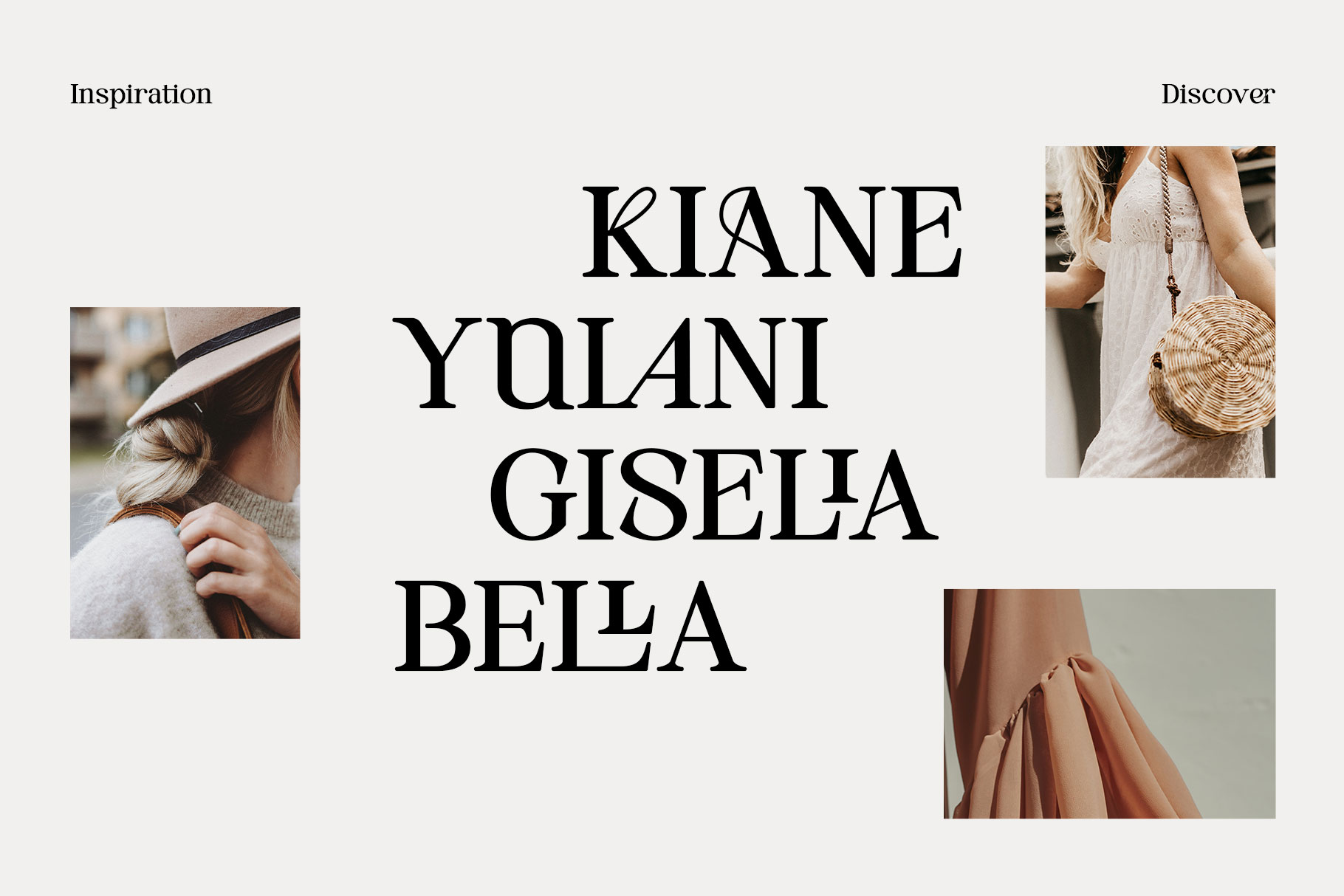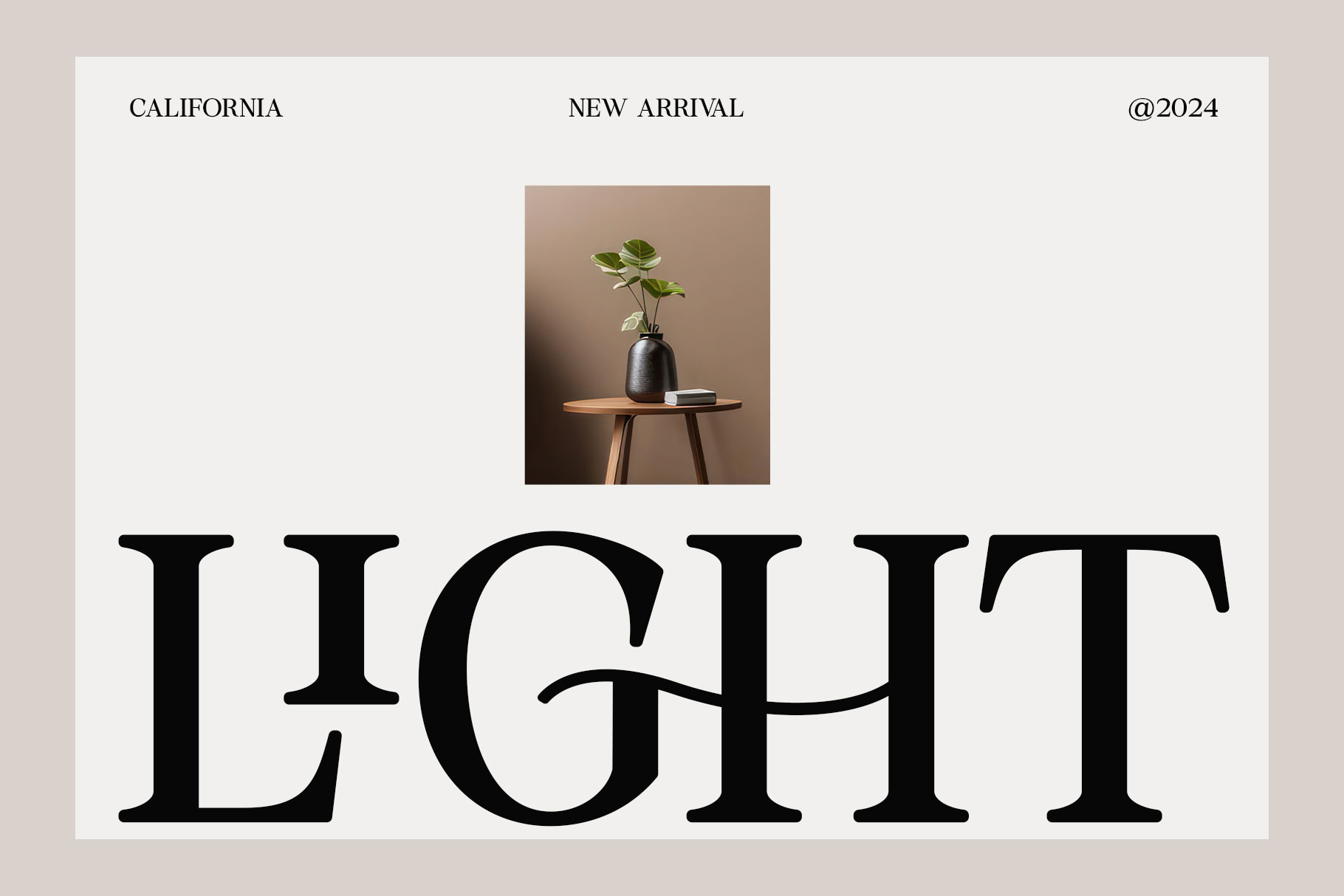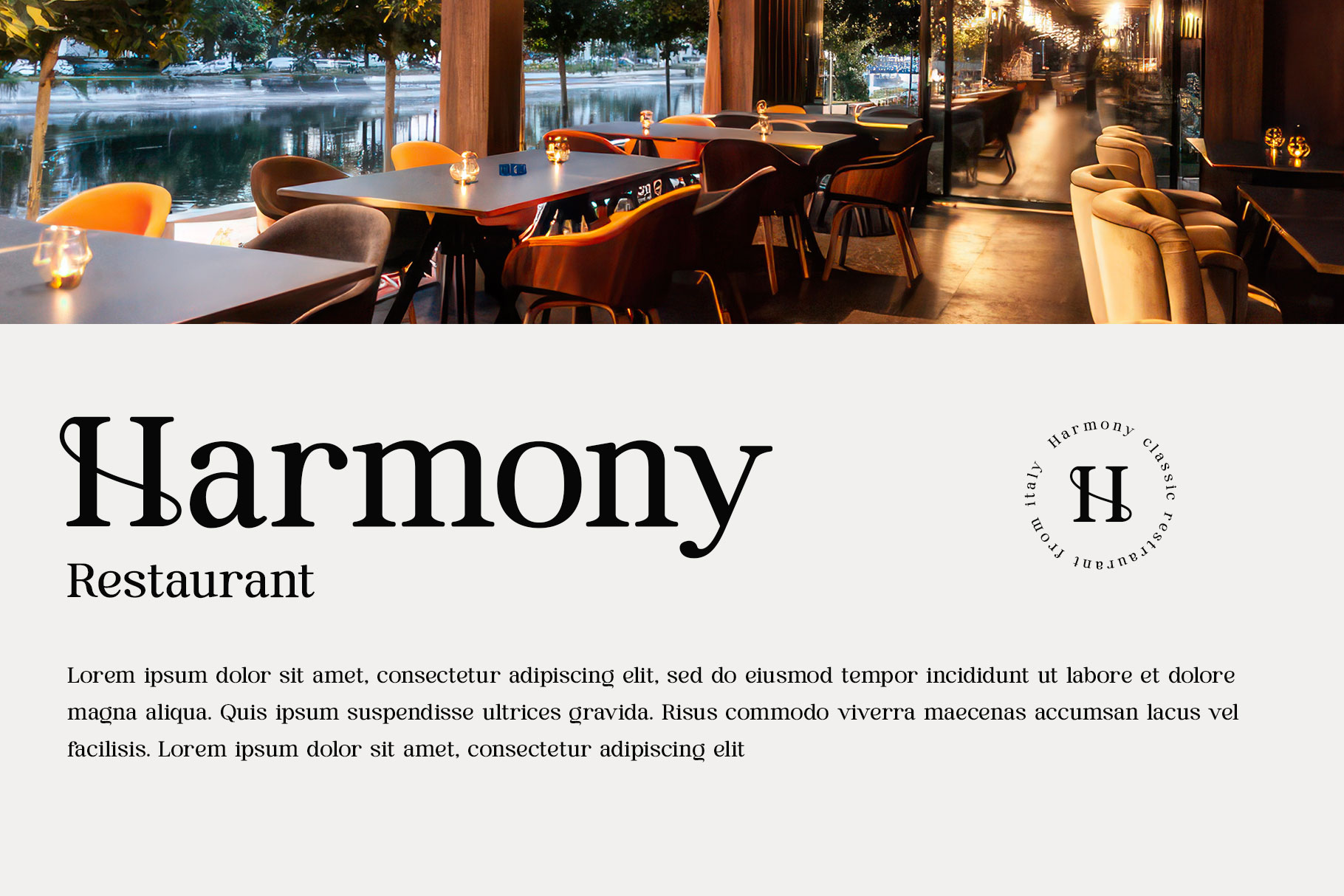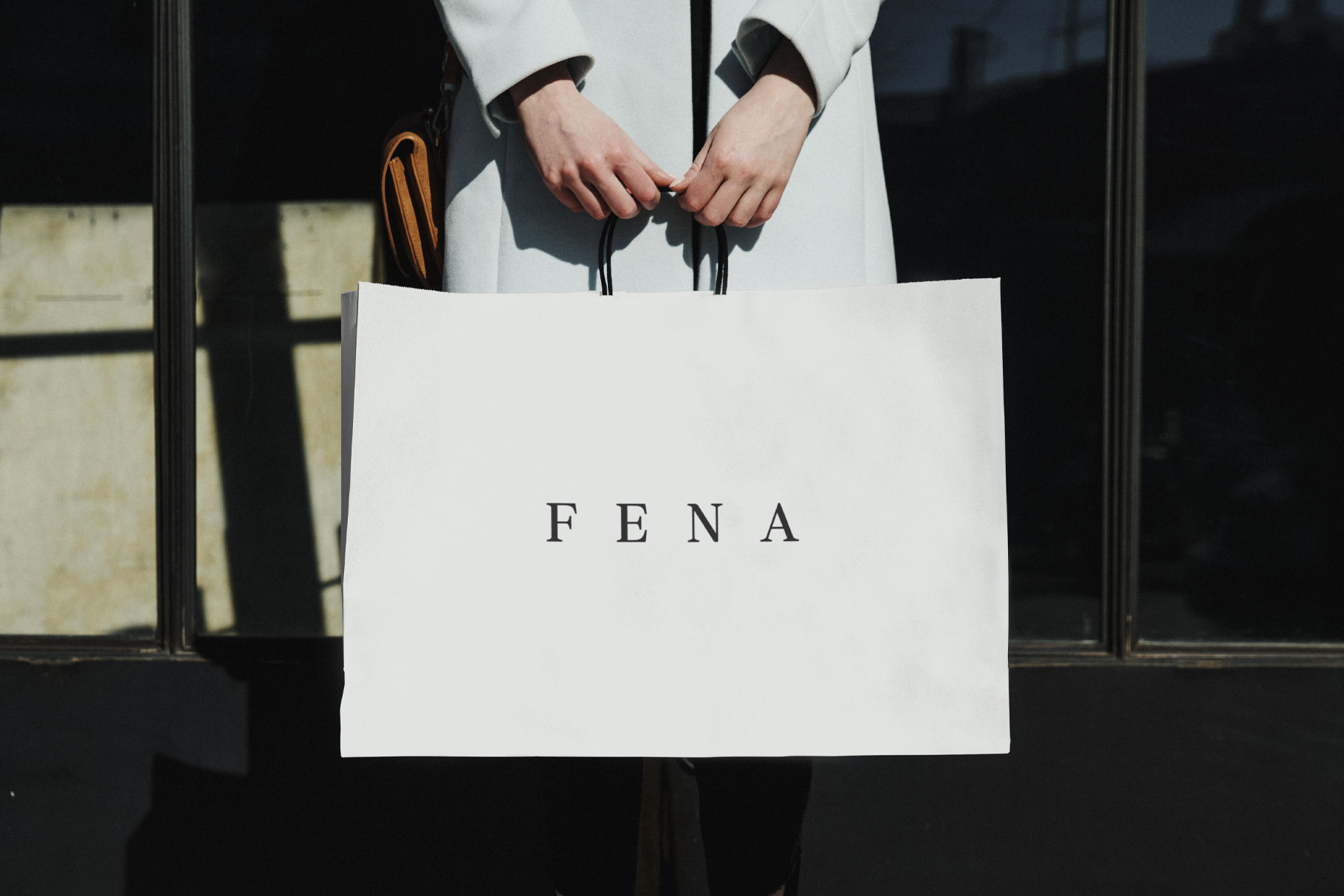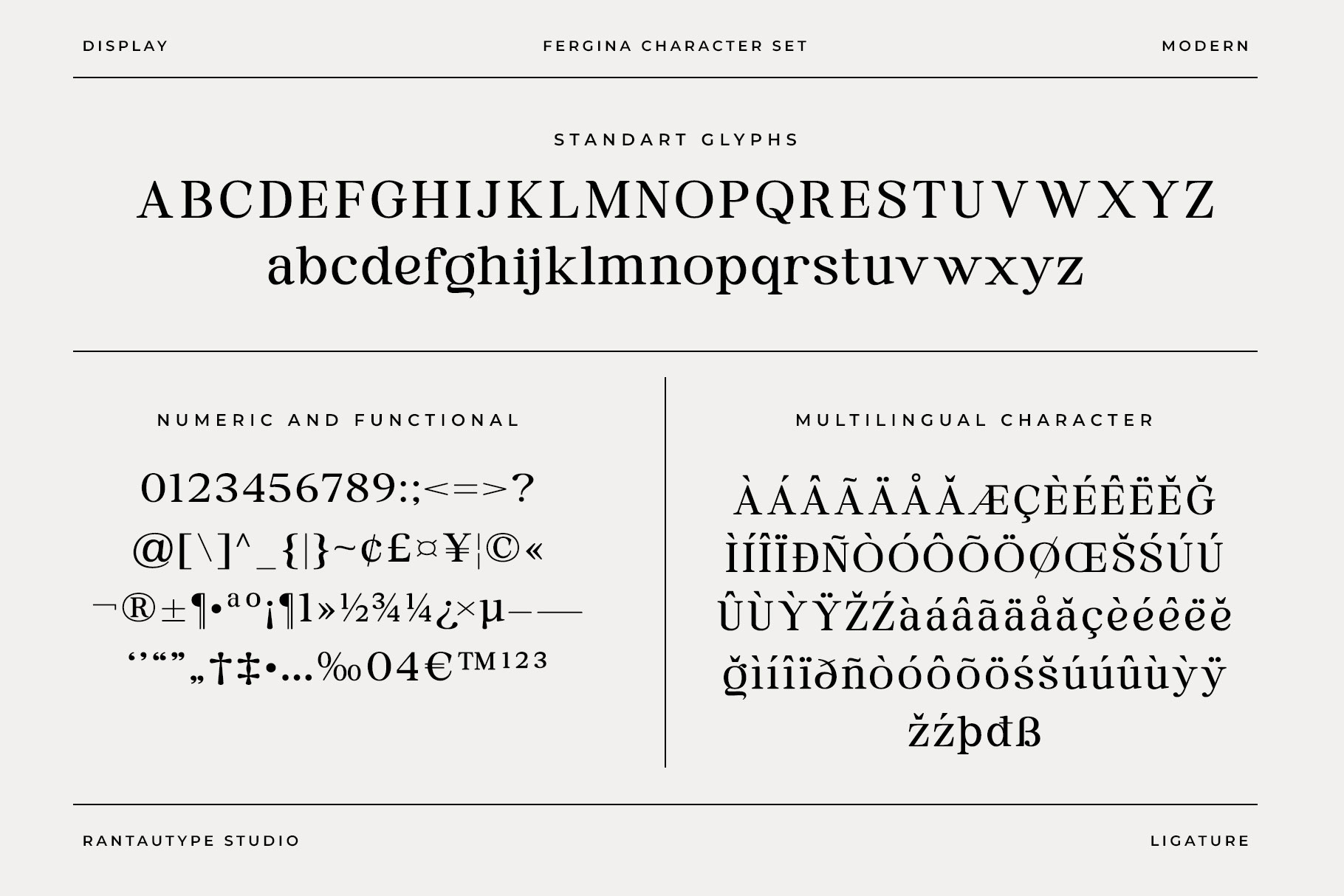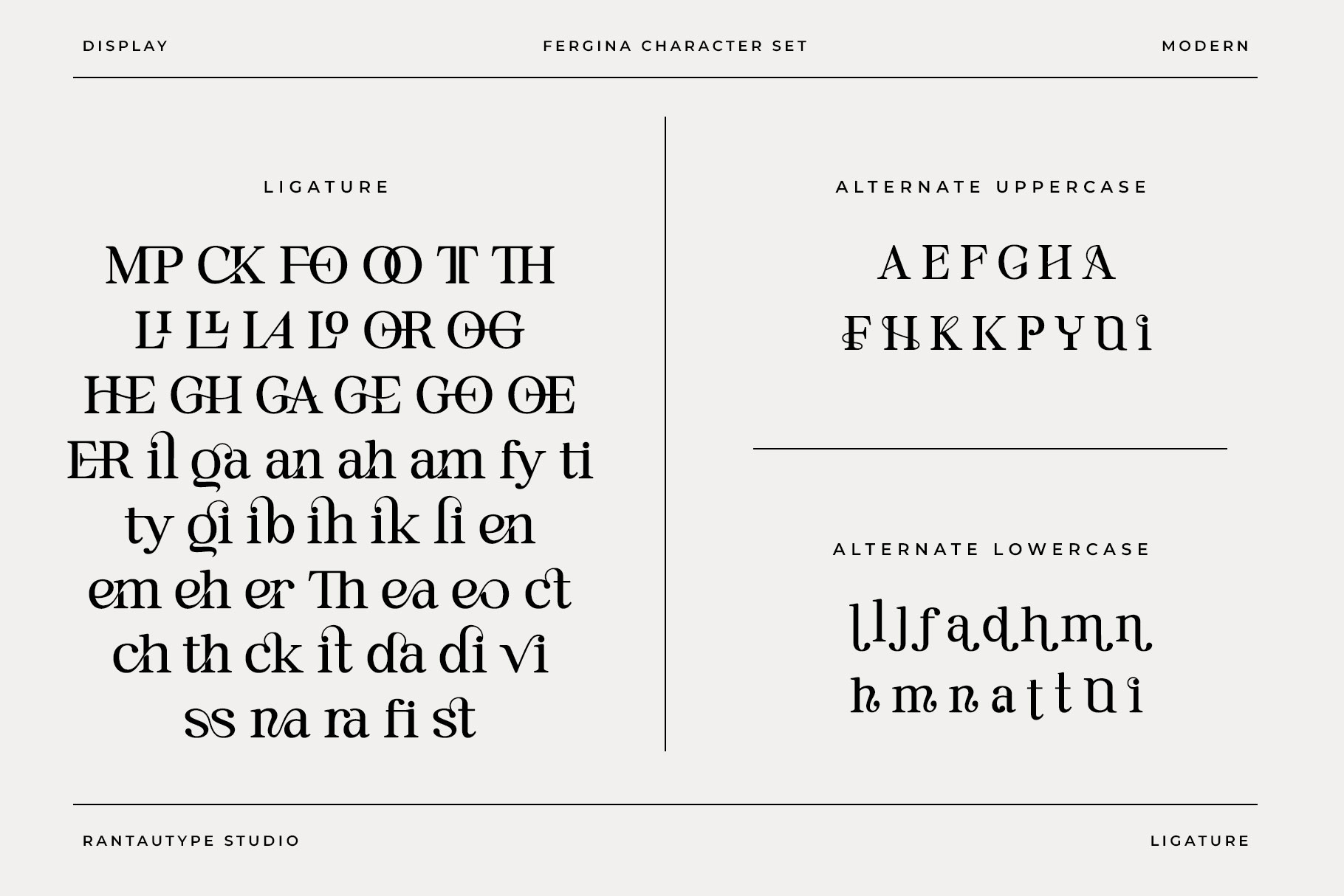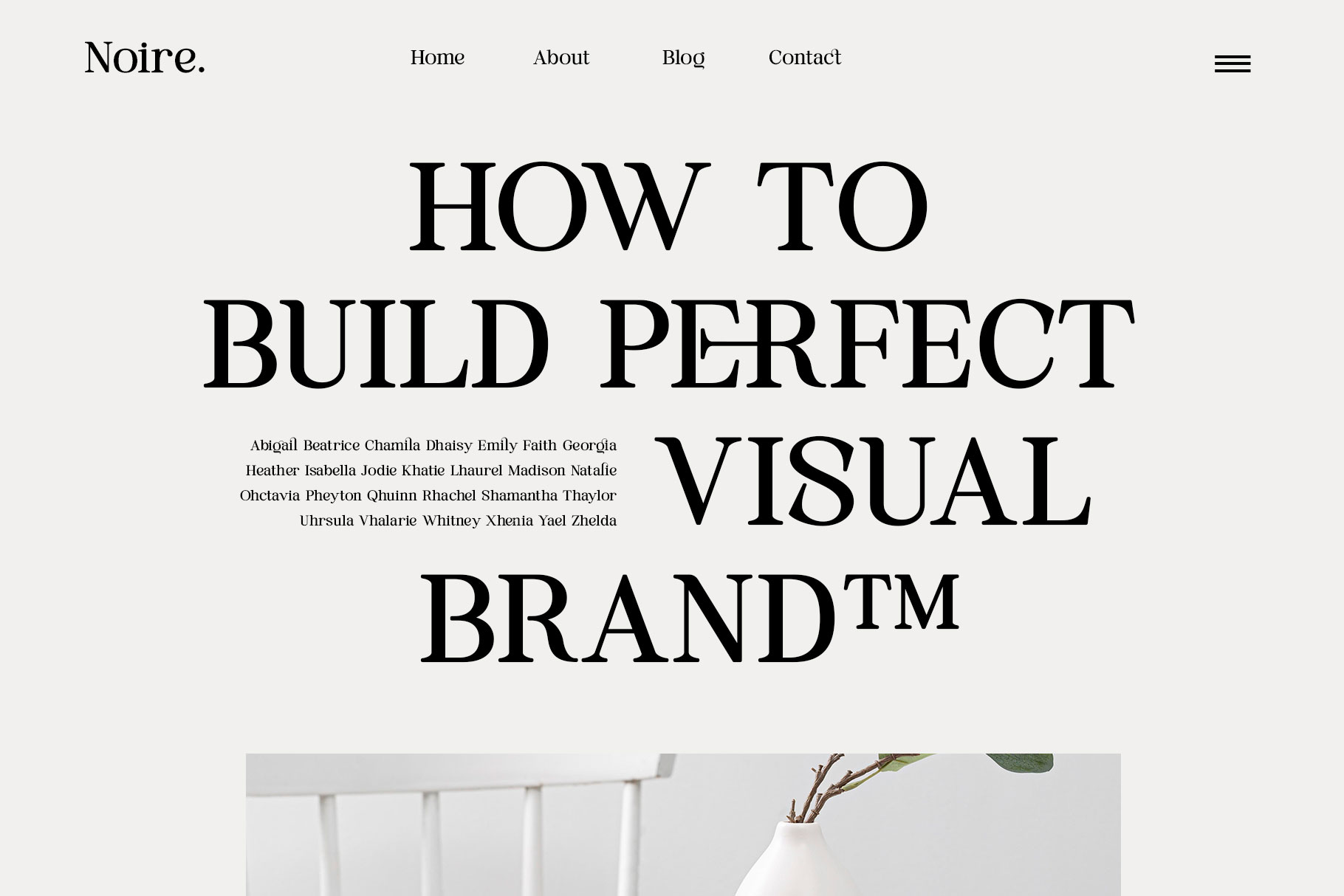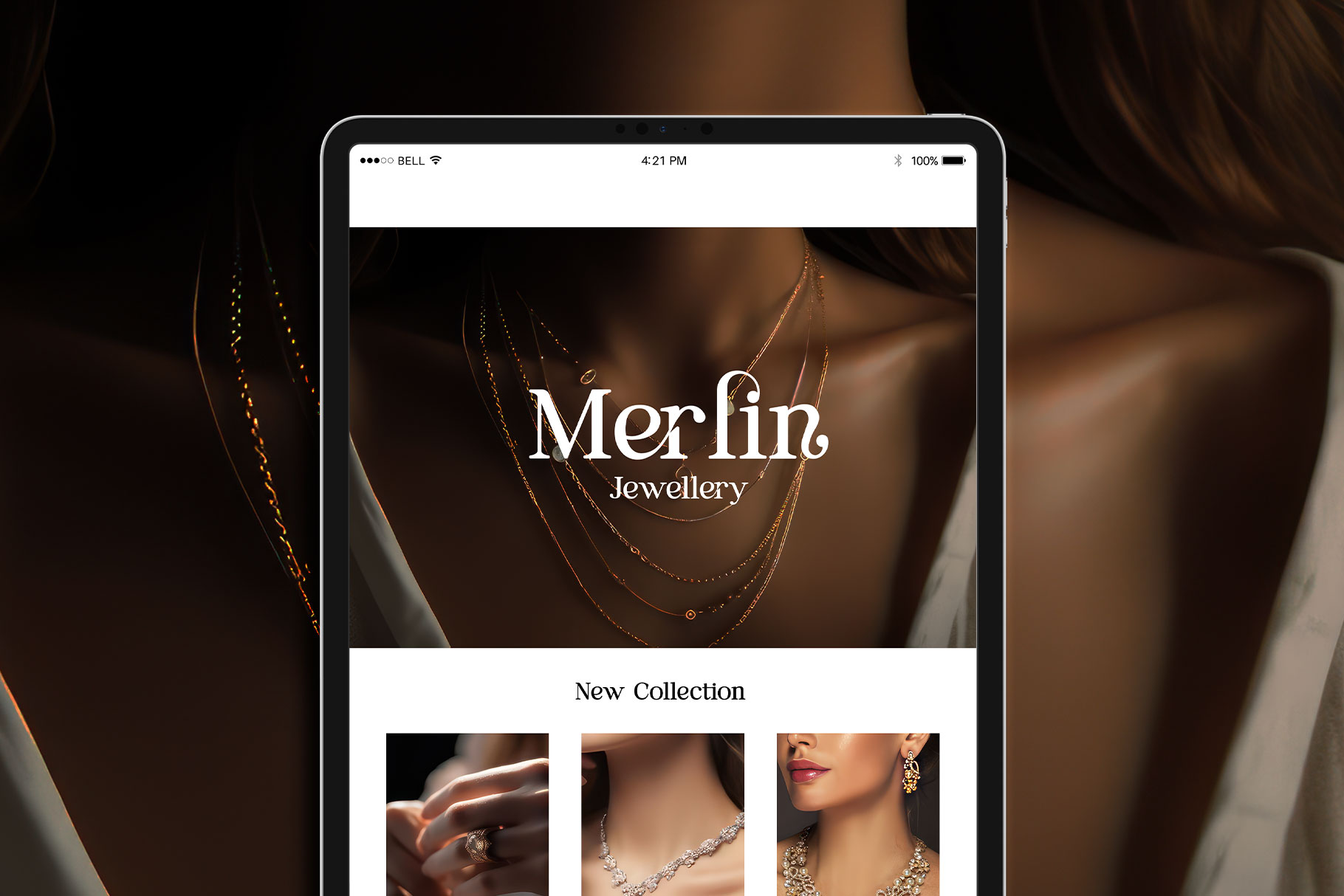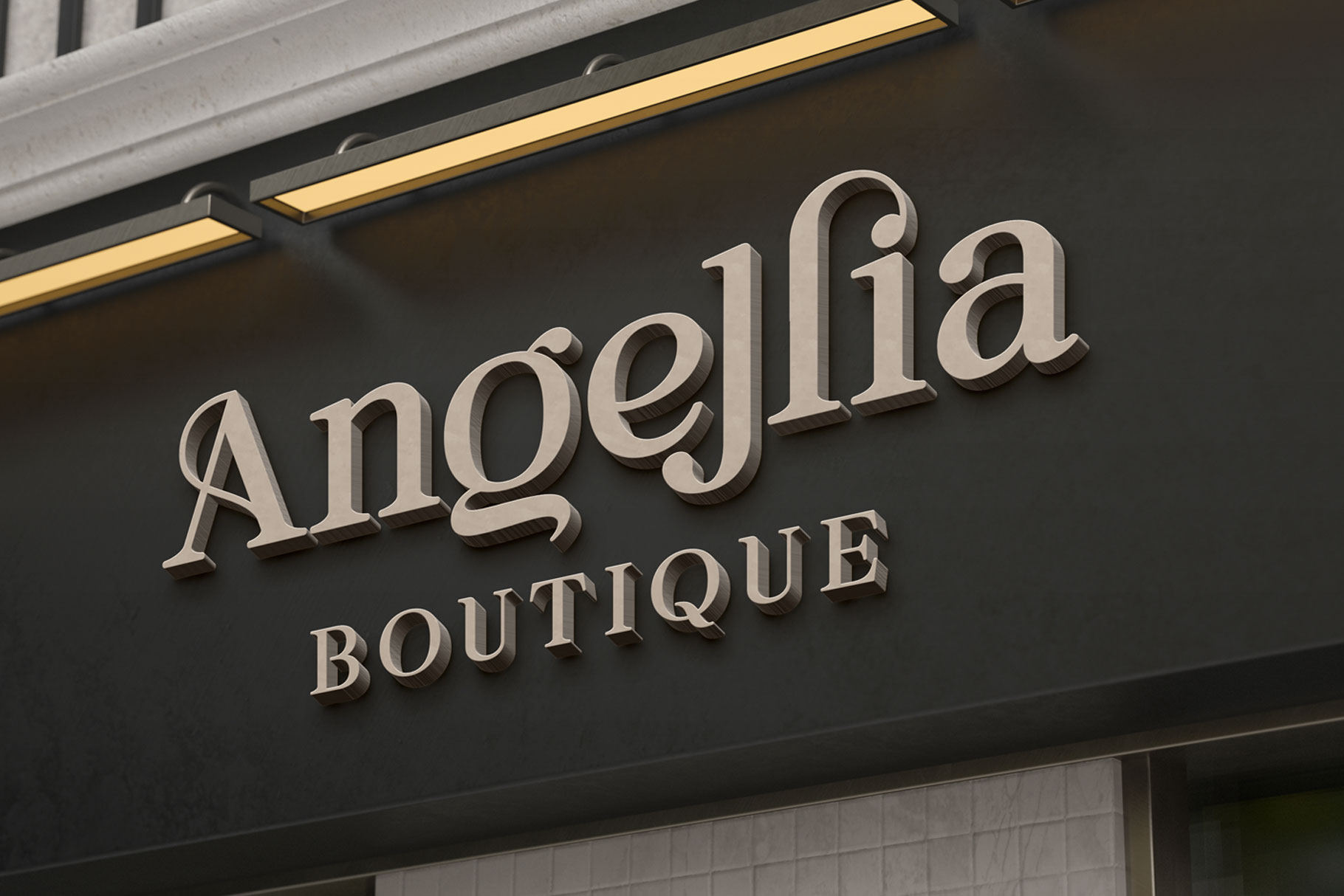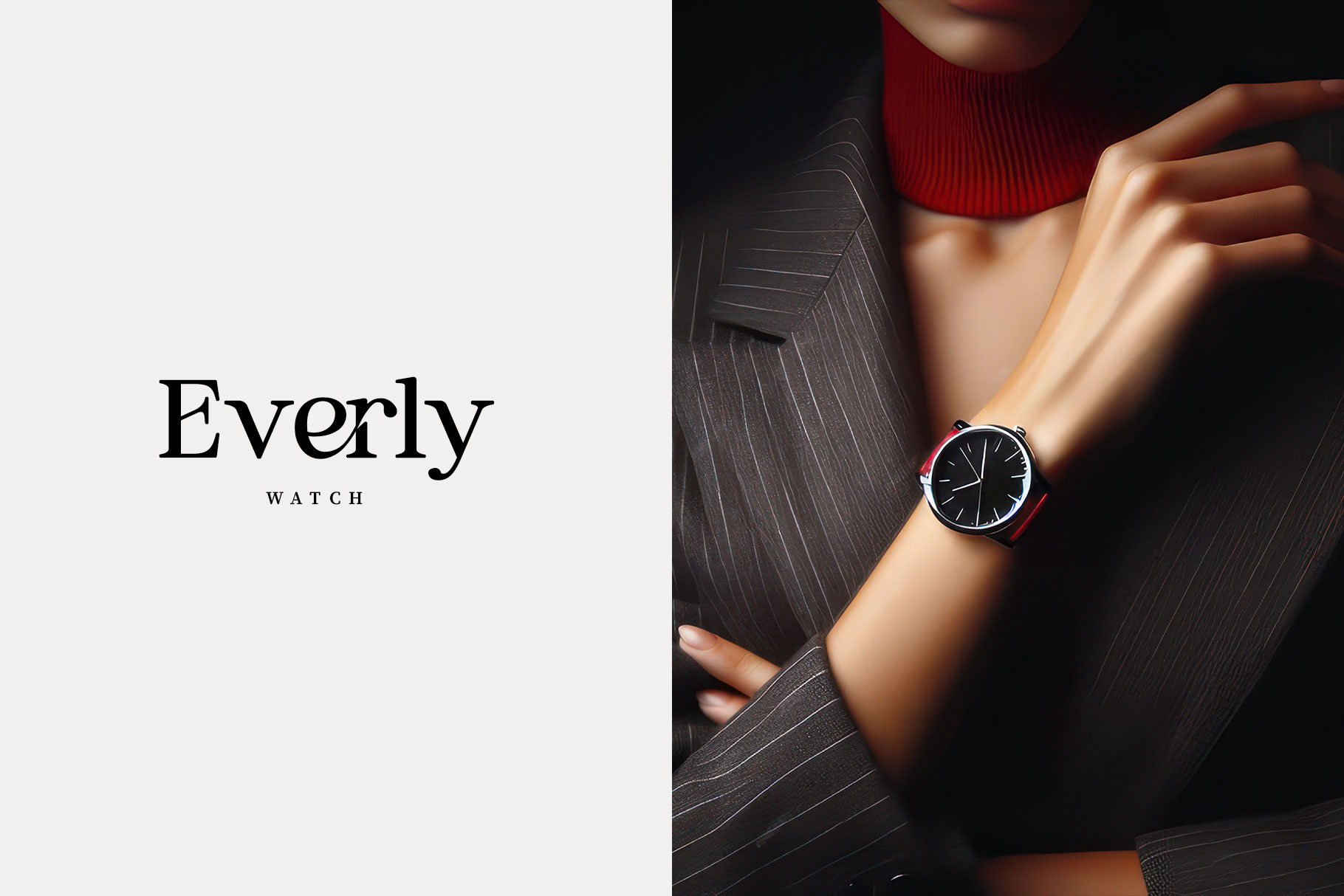
Fergina Modern Ligature Font
Fergina is modern serif font with 50+ ligature. Fergina give elegant and attractive visual design to create project design stand out.
Fergina is a perfectly choice for any creative endeavor, chic, lifestyle design such as logos, advertisements, watermark on photography, stationery, branding project, display and magazine, invitation, corporate brand, product design, label, business project and many other project with elegant touch.